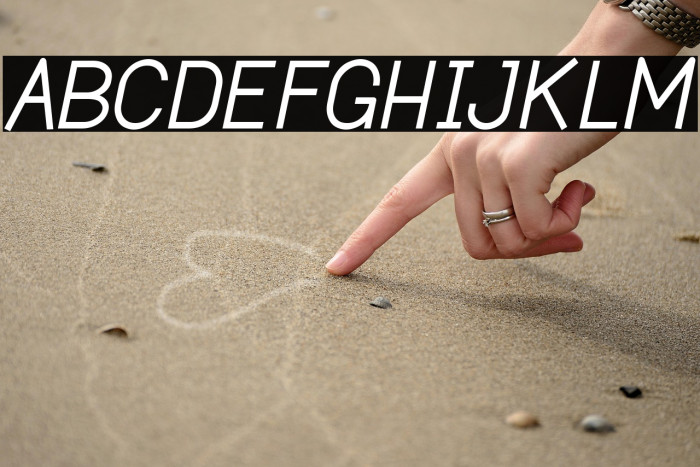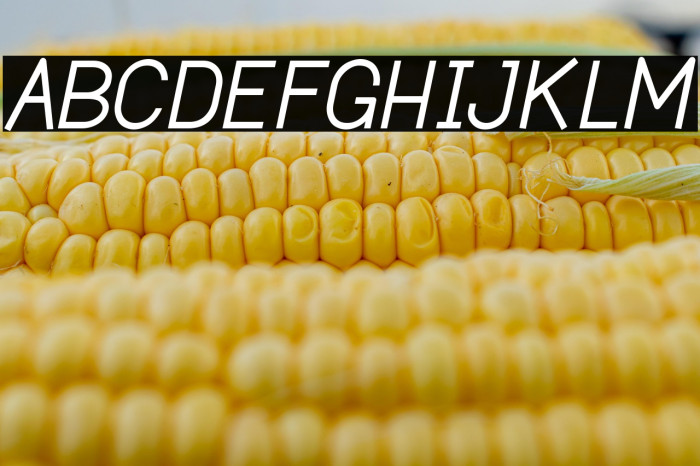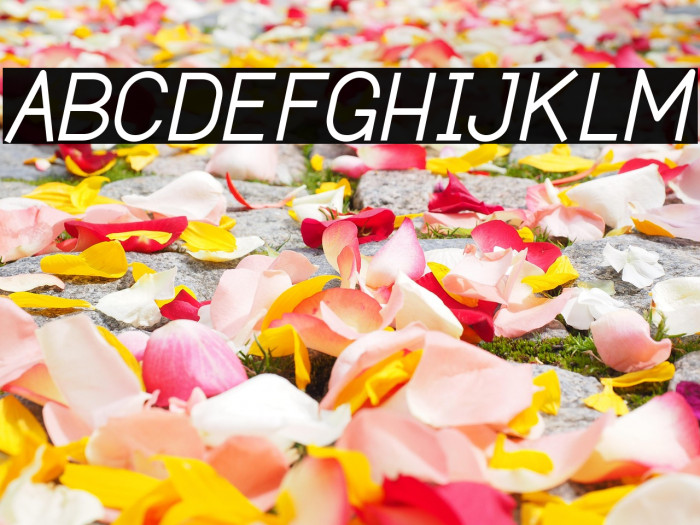
Dustismo Italic Font
Dustismo Italic Description
This font features a sleek and modern italic style with a slight slant, giving it a dynamic and forward-moving appearance. The characters are well-proportioned with a consistent stroke width, making it easy to read while maintaining a stylish flair. The uppercase letters are tall and commanding, while the lowercase letters have a smooth, flowing quality. The numerals are clear and balanced, and the special characters are distinct, ensuring versatility across various applications. The overall design is clean and contemporary, suitable for both digital and print media.